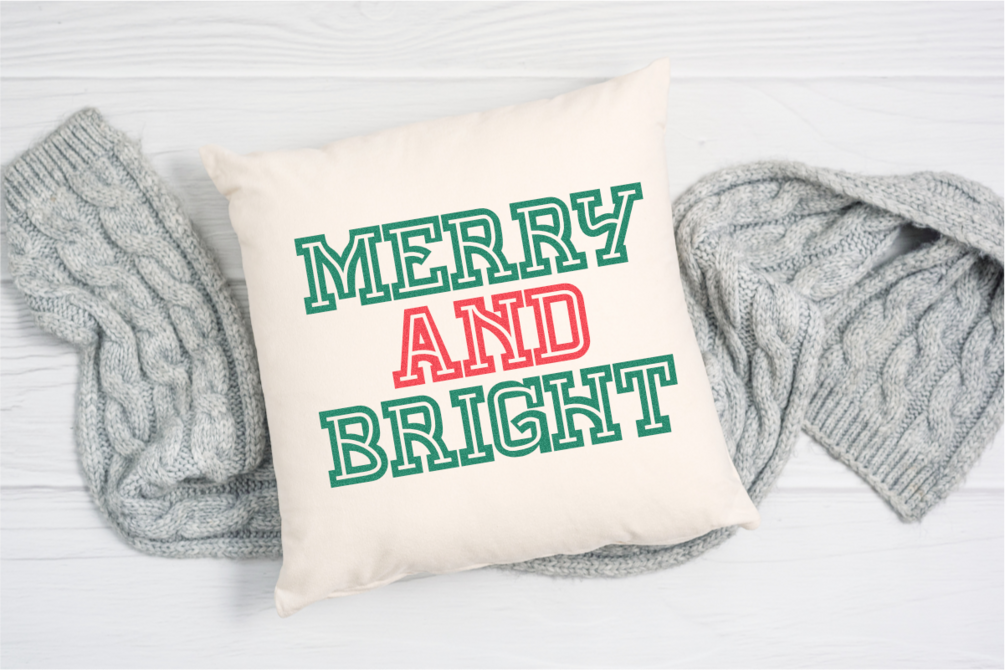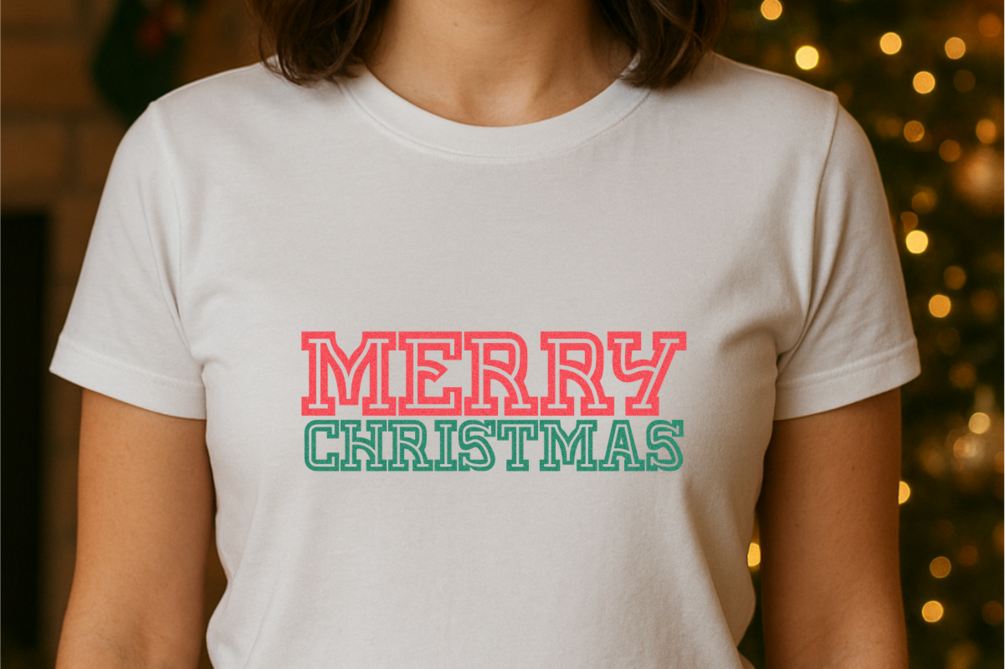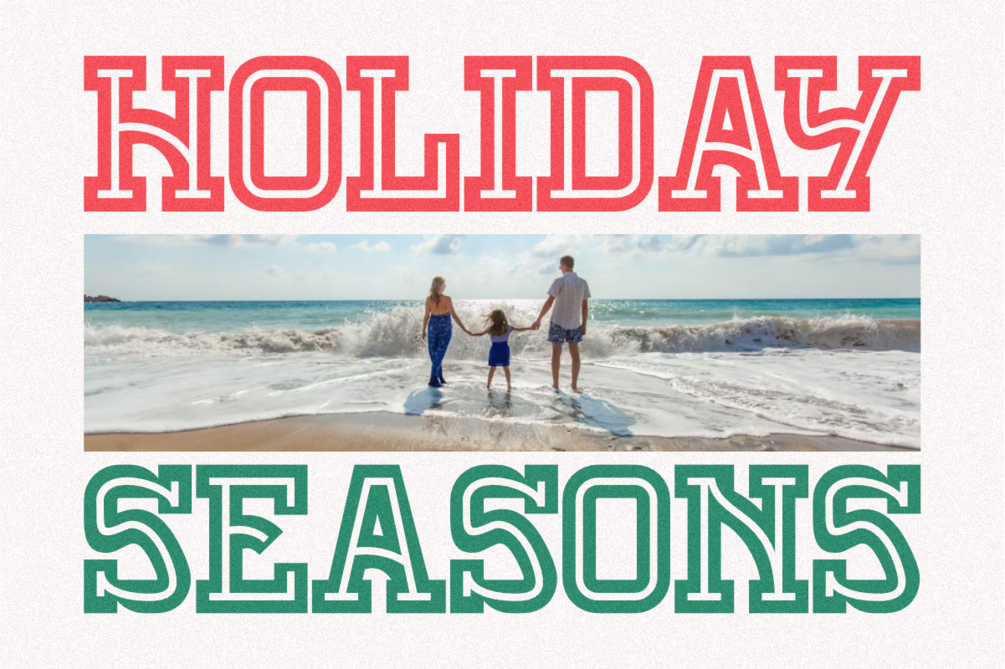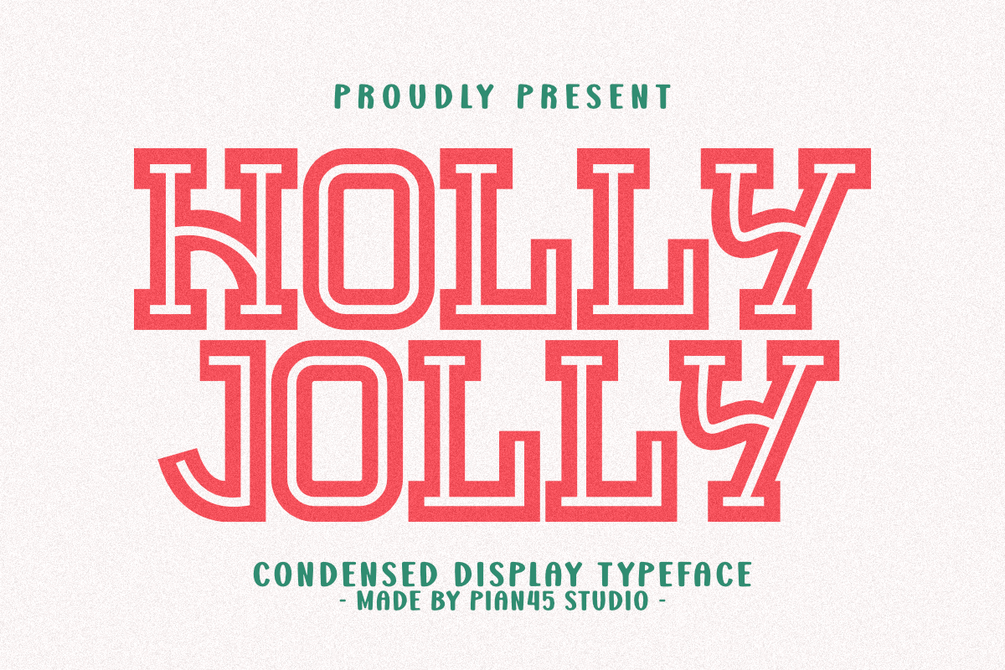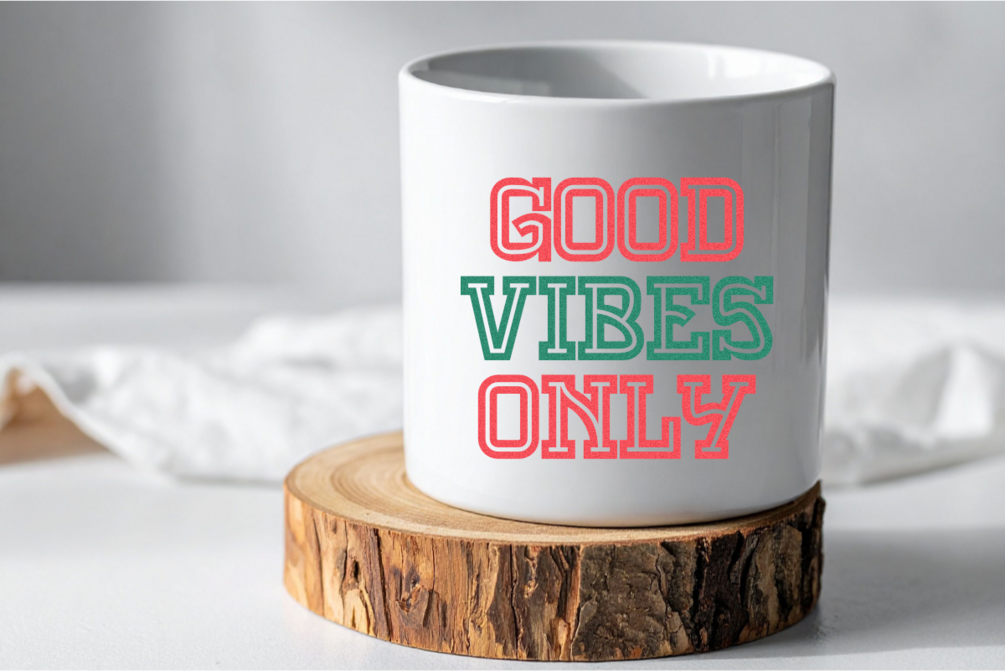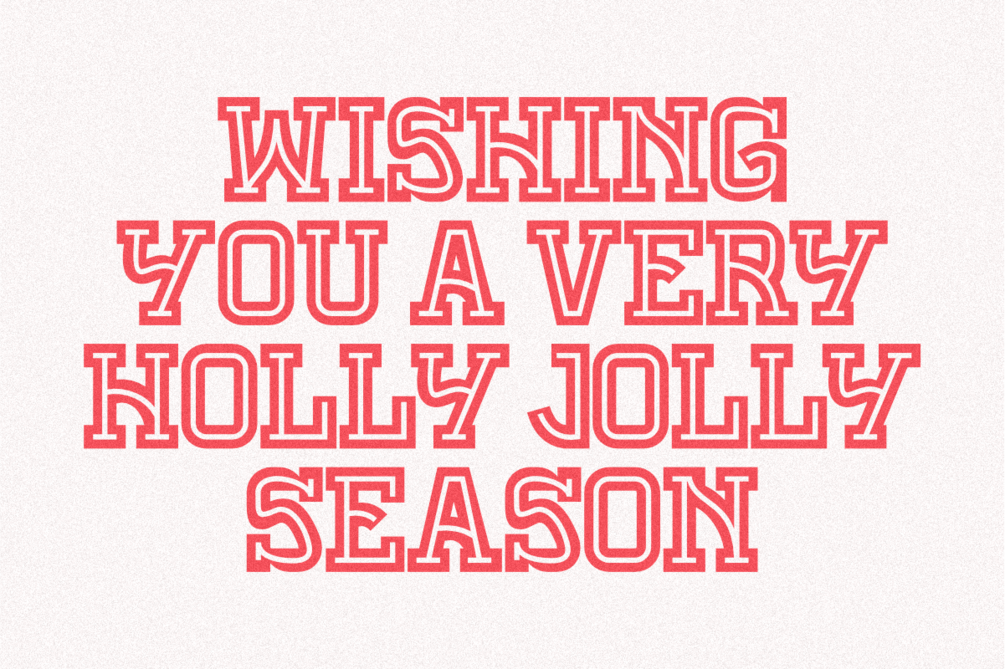
Holly Jolly - Outline Display Font
Holly Jolly is a delightful and cheerful Condensed Display Typeface, expertly designed for the Christmas and Holiday season. Its thick, rounded structure and unique curved details give it a modern, playful, and festive appeal. With both Regular and Outline styles, this font is perfect for layered designs, seasonal apparel, holiday branding, greeting cards, and high-impact December marketing. Holly Jolly delivers a fun, professional, and instantly recognizable visual identity for all your joyful winter projects.